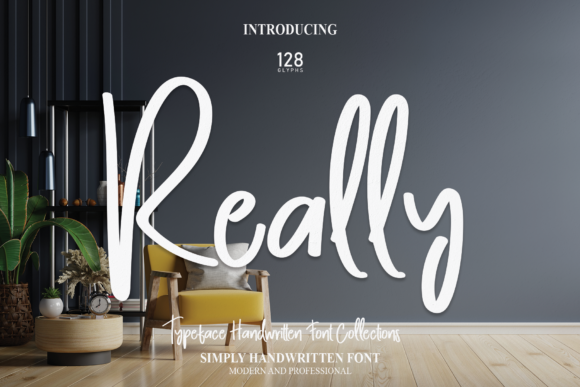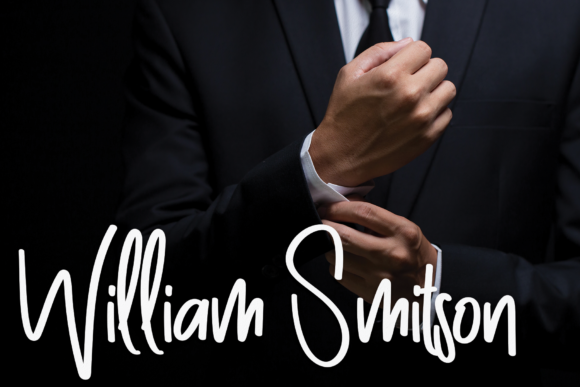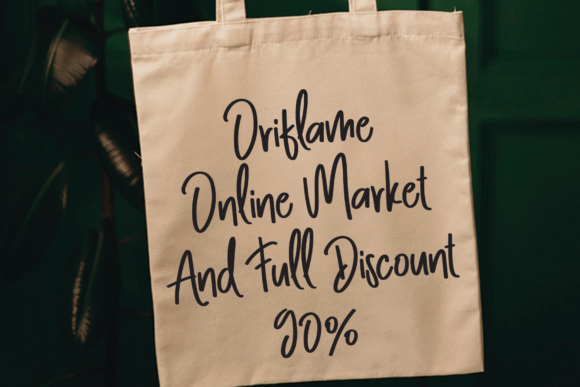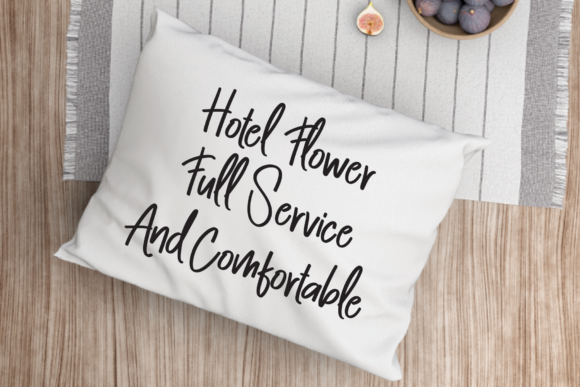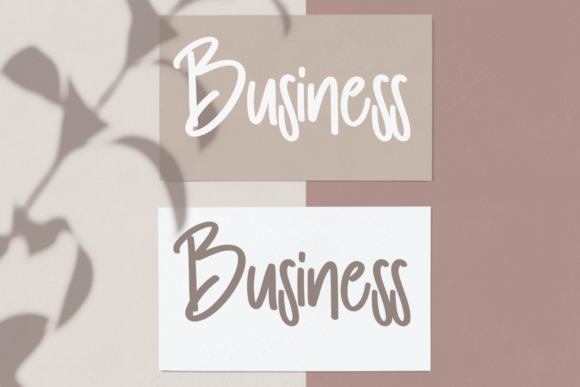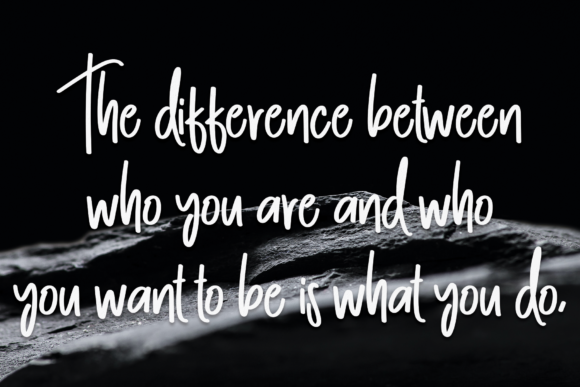
About Really Font
“Really” is a dynamic and expressive free-flowing script font that has been thoughtfully designed to infuse high-quality vibes into a wide range of creative projects. Its natural and fluid strokes contribute to a captivating and stylish appearance, making it an excellent choice for various design applications.
The font’s elegant and balanced character ensures that it can seamlessly integrate into a diverse array of visual compositions. Its versatility makes it suitable for packaging products, invitation cards, flyers, mockups, event posters, and many other design elements that require a touch of sophistication and creativity.
With its open and airy letterforms, “Really” carries a sense of movement and energy, allowing it to stand out in various contexts. The font’s free-flowing nature creates a sense of dynamism that can bring a lively and engaging feel to your designs, capturing the attention of your audience.
The thoughtful design of “Really” extends to its legibility, making it a practical choice for conveying your message effectively. Whether used for headlines, subheadings, or body text, the font maintains a balance between style and readability, ensuring that your content is both visually appealing and easy to understand.
Furthermore, the font’s adaptability to different design styles allows it to cater to a wide range of themes and aesthetics. Whether your project requires a modern, elegant, or even playful approach, “Really” can be customized to suit your creative vision.
The inclusion of various glyphs and swashes through PUA encoding enhances the font’s versatility, allowing you to explore different typographic variations and create personalized touches in your designs. This feature opens up opportunities for customization and ensures that your designs stand out from the rest.
In summary, “Really” is a free-flowing script font that brings a high-quality and balanced character to a diverse range of design projects. Its dynamic strokes, combined with its versatility and legibility, make it a valuable asset for creating visually captivating and engaging compositions. Whether you’re designing for packaging, invitations, or promotional materials, “Really” has the potential to elevate your designs and leave a lasting impression.